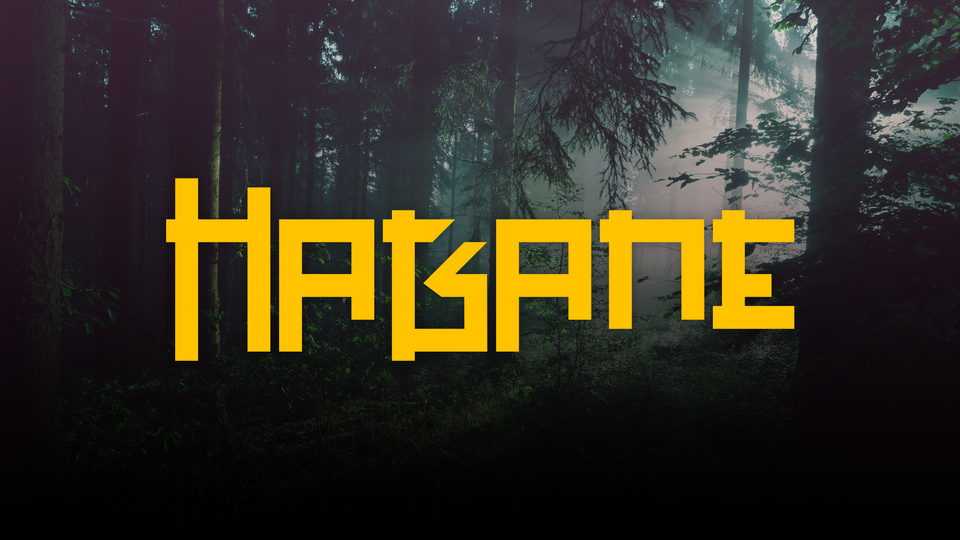
Download Hagane font, a square and grid-based with an industrial and futuristic appearance. Hagane font is great for display, logos, branding, packaging, advertising, posters and more.
Designer: Burak Mescioğlu